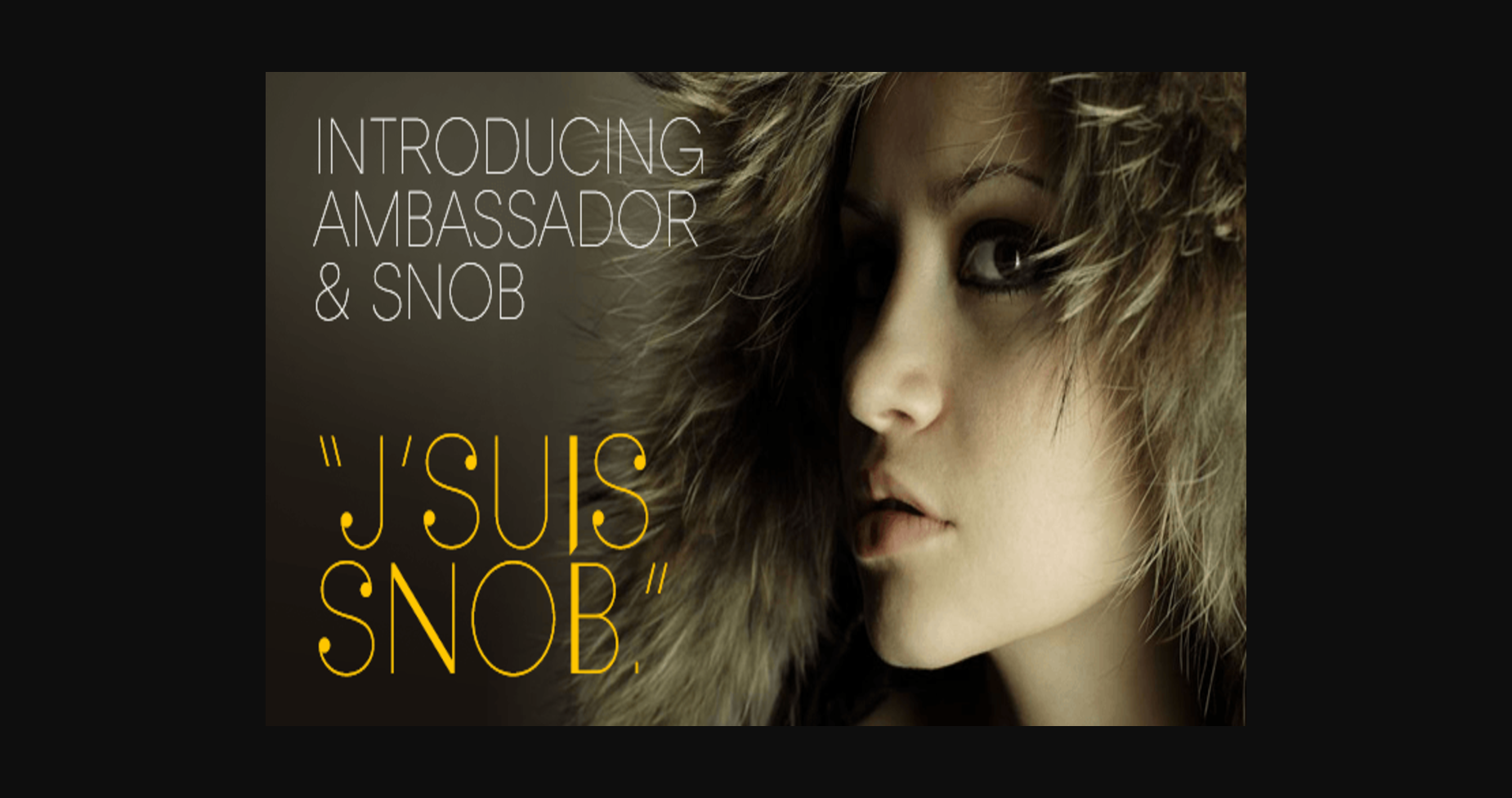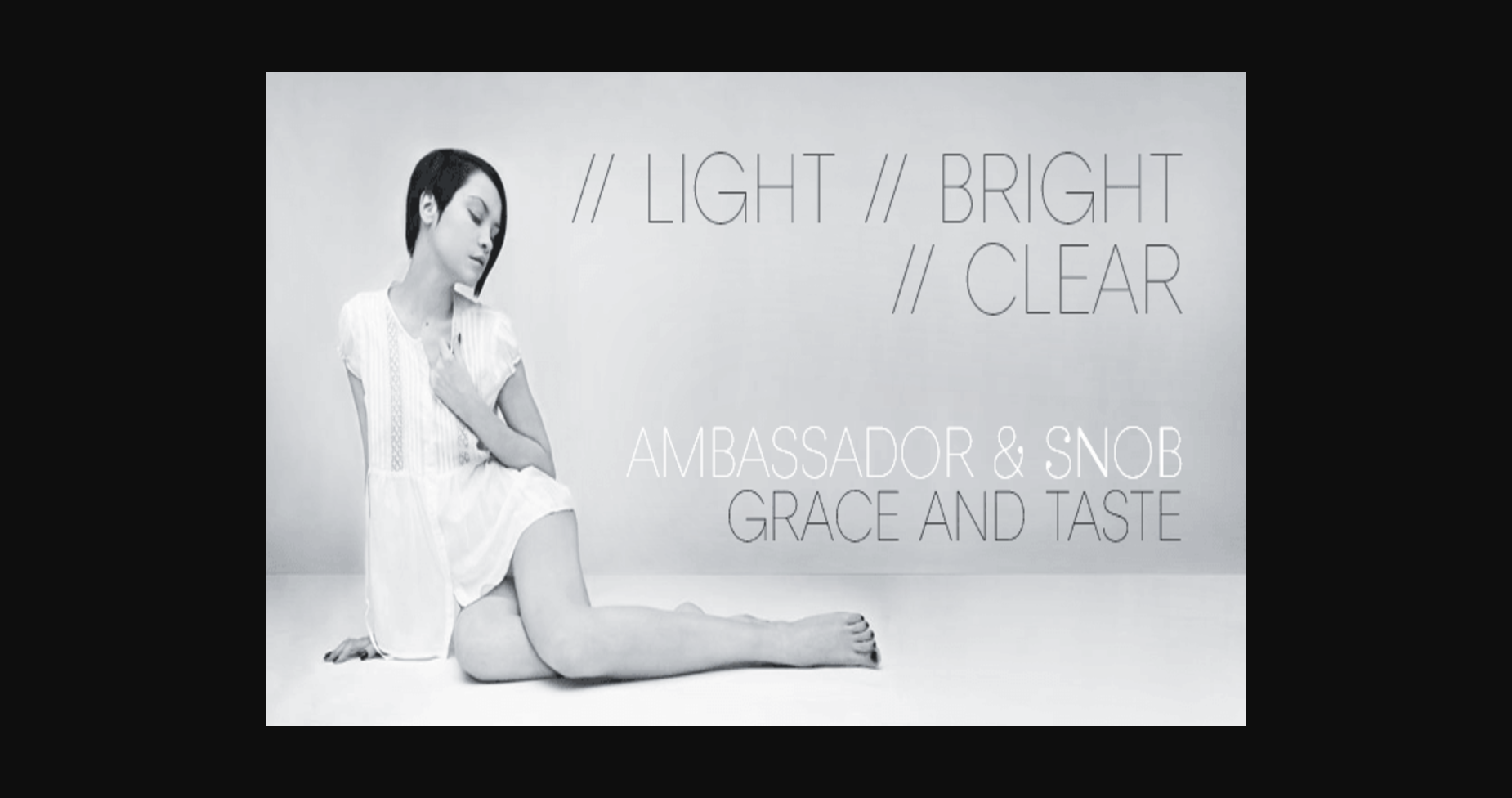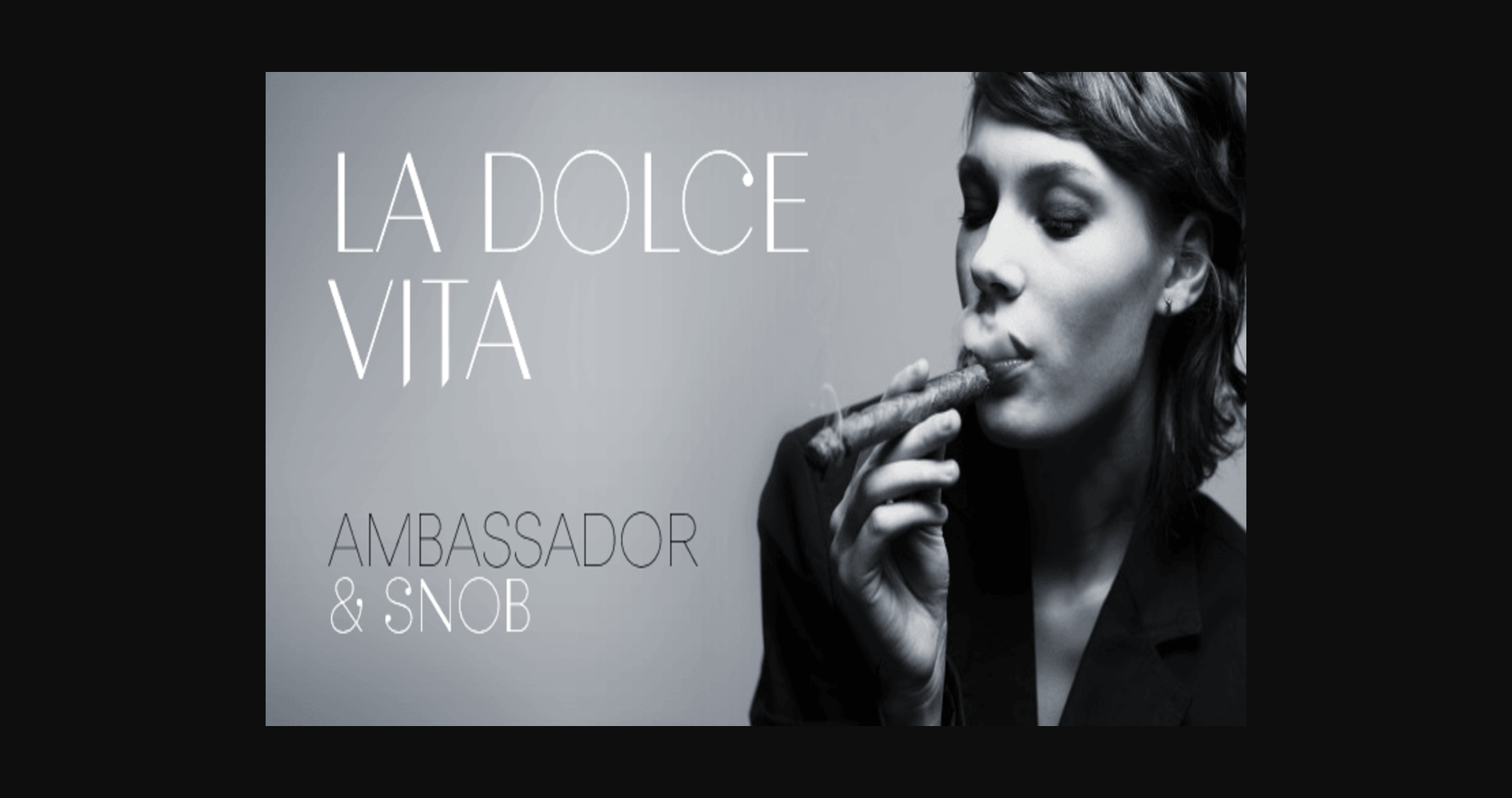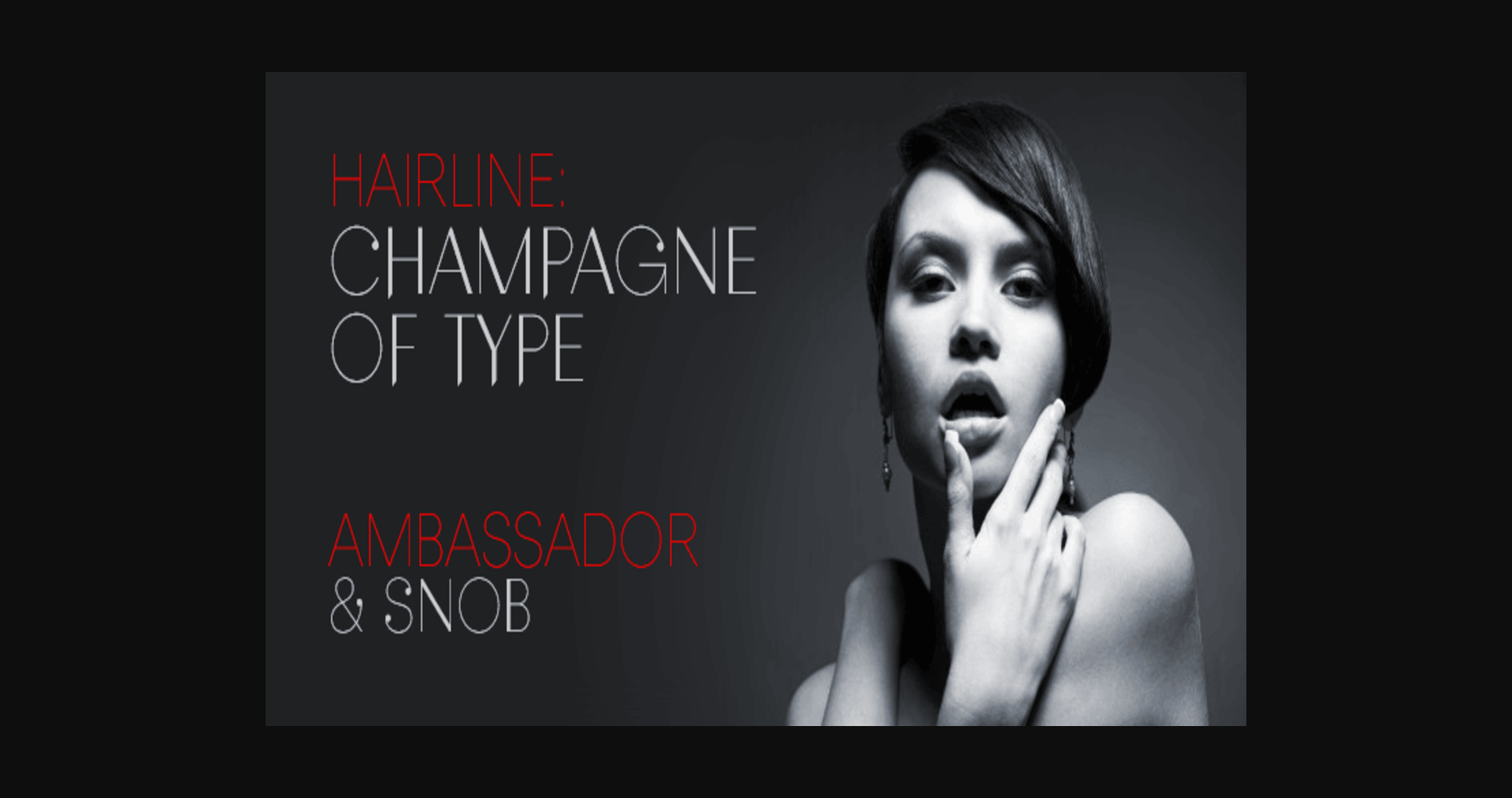
Ambassador Font
About Ambassador Font
Ambassador is a display and display sans font family. This typeface has two styles and was published by Juraj Chrastina.
Hairline display fonts are elegant and subtle with a touch of luxury. They are the Champagne of type. Ambassador represents a classy typeface best suitable for magazines, cosmetics packaging, advertising, or any kind of fine and sensitive design.
The quality of the display-oriented spacing and kerning of this font is ensured by Igino Marini.
Snob is a high-contrast display face with a touch of luxury. It represents a classy typeface with a fashion magazine-style. You can easily combine Snob with Ambassador, which was the base for creating Snob.